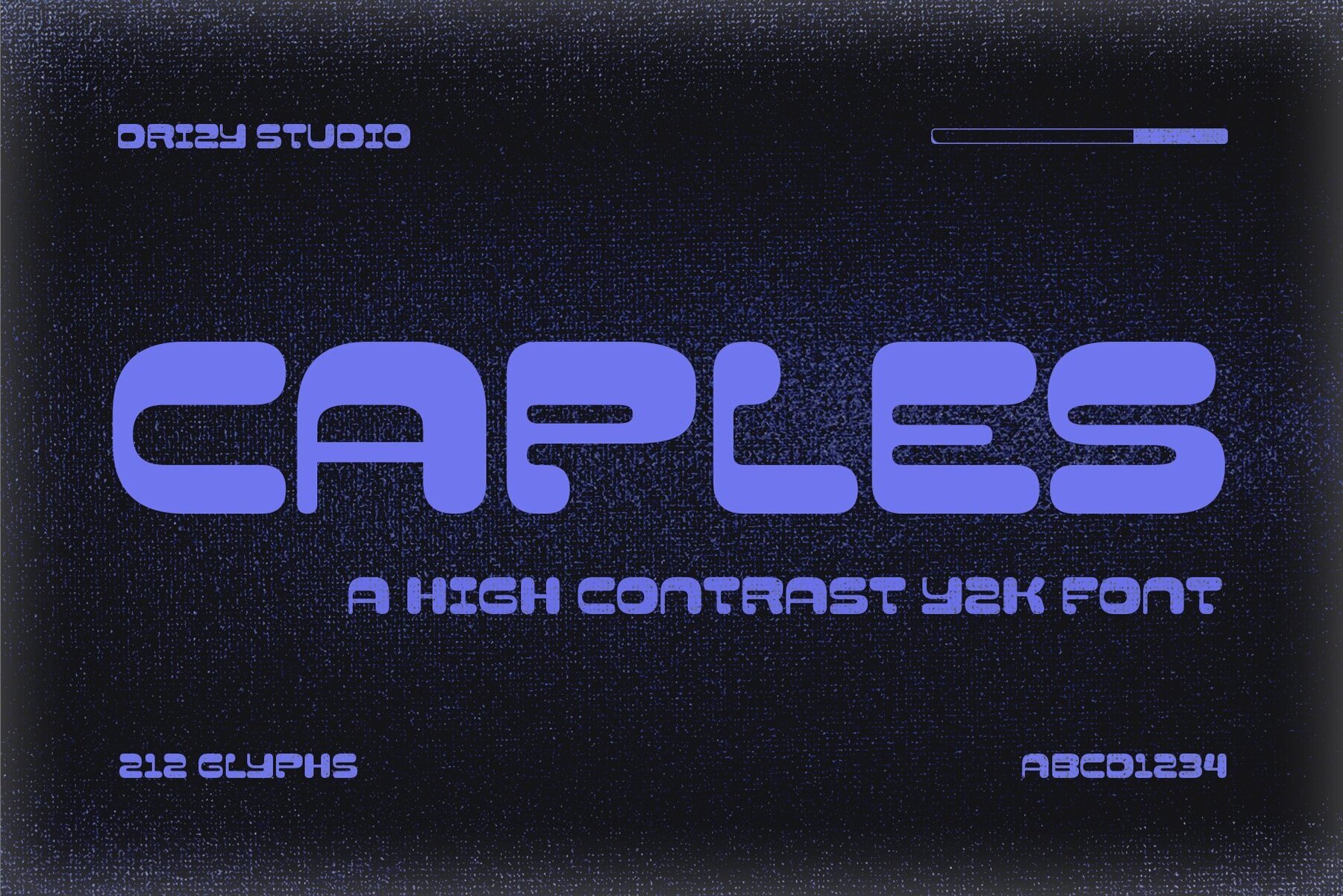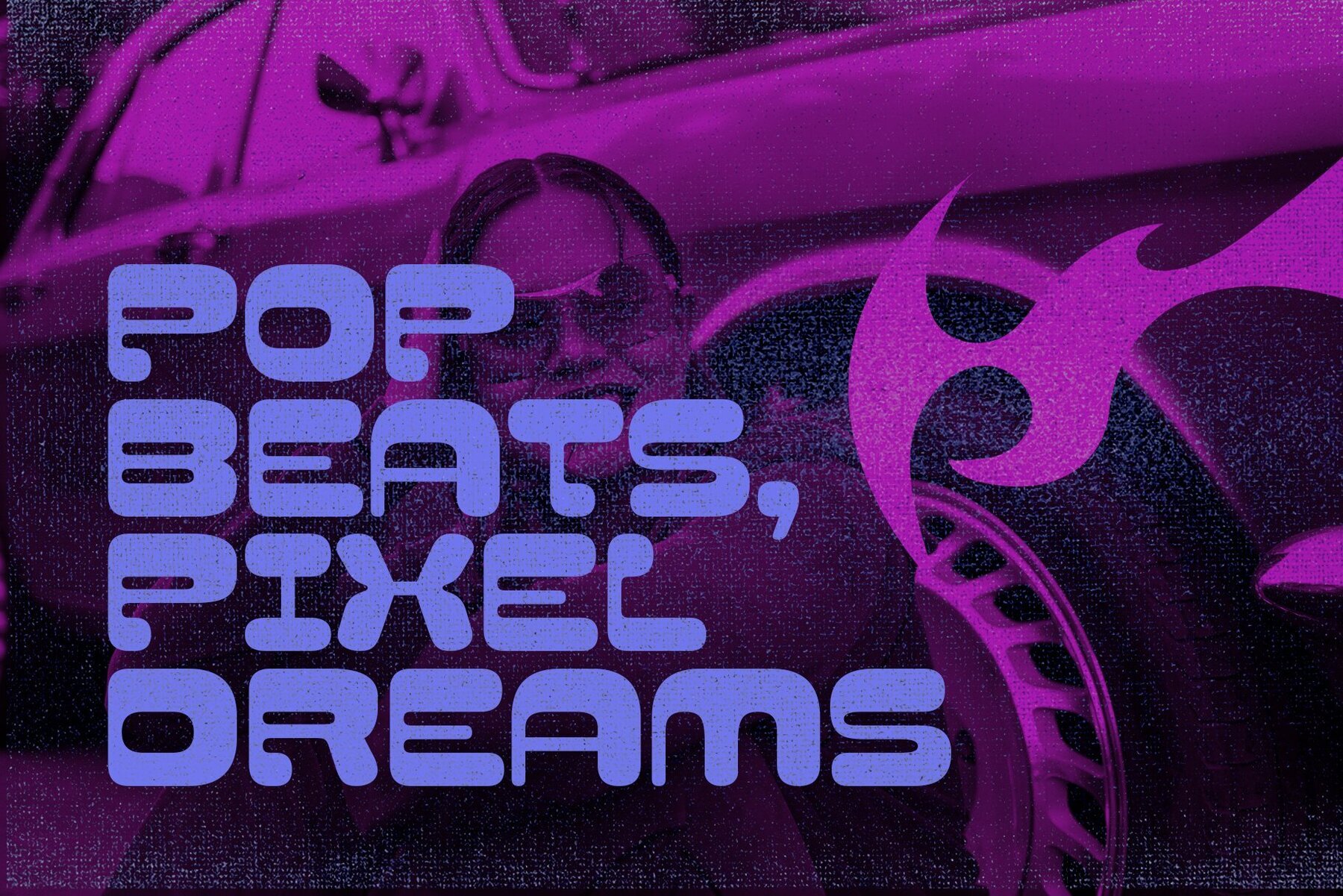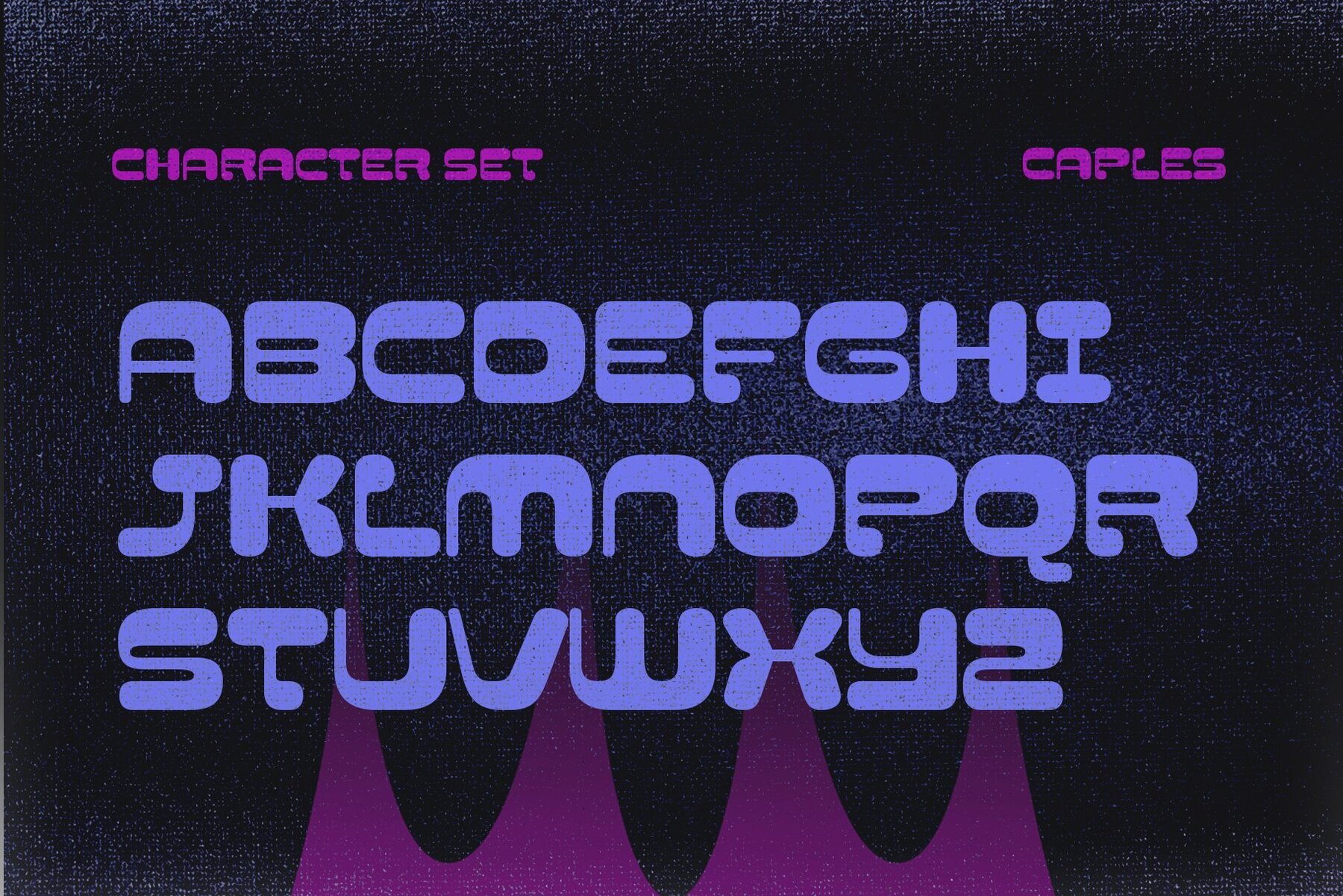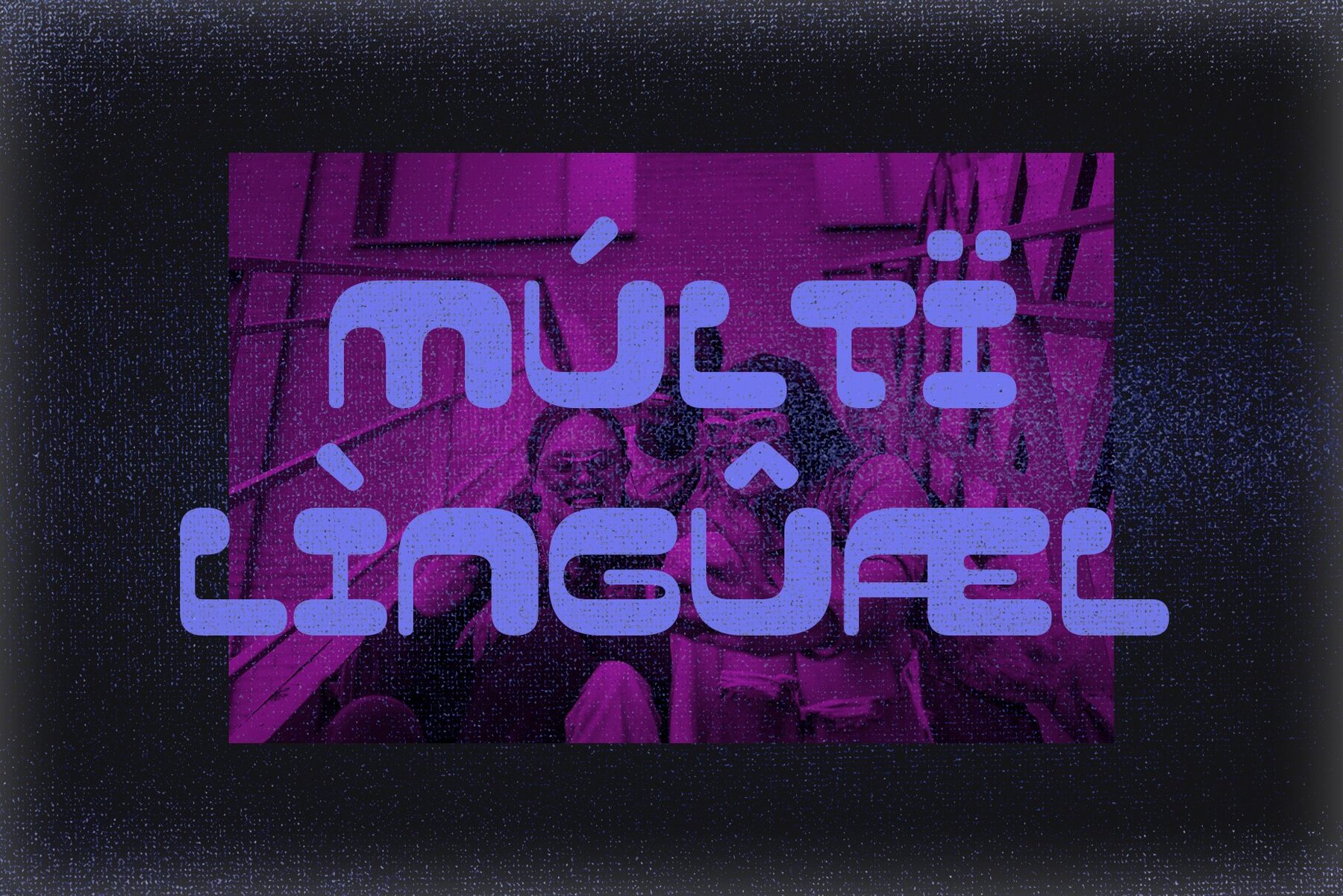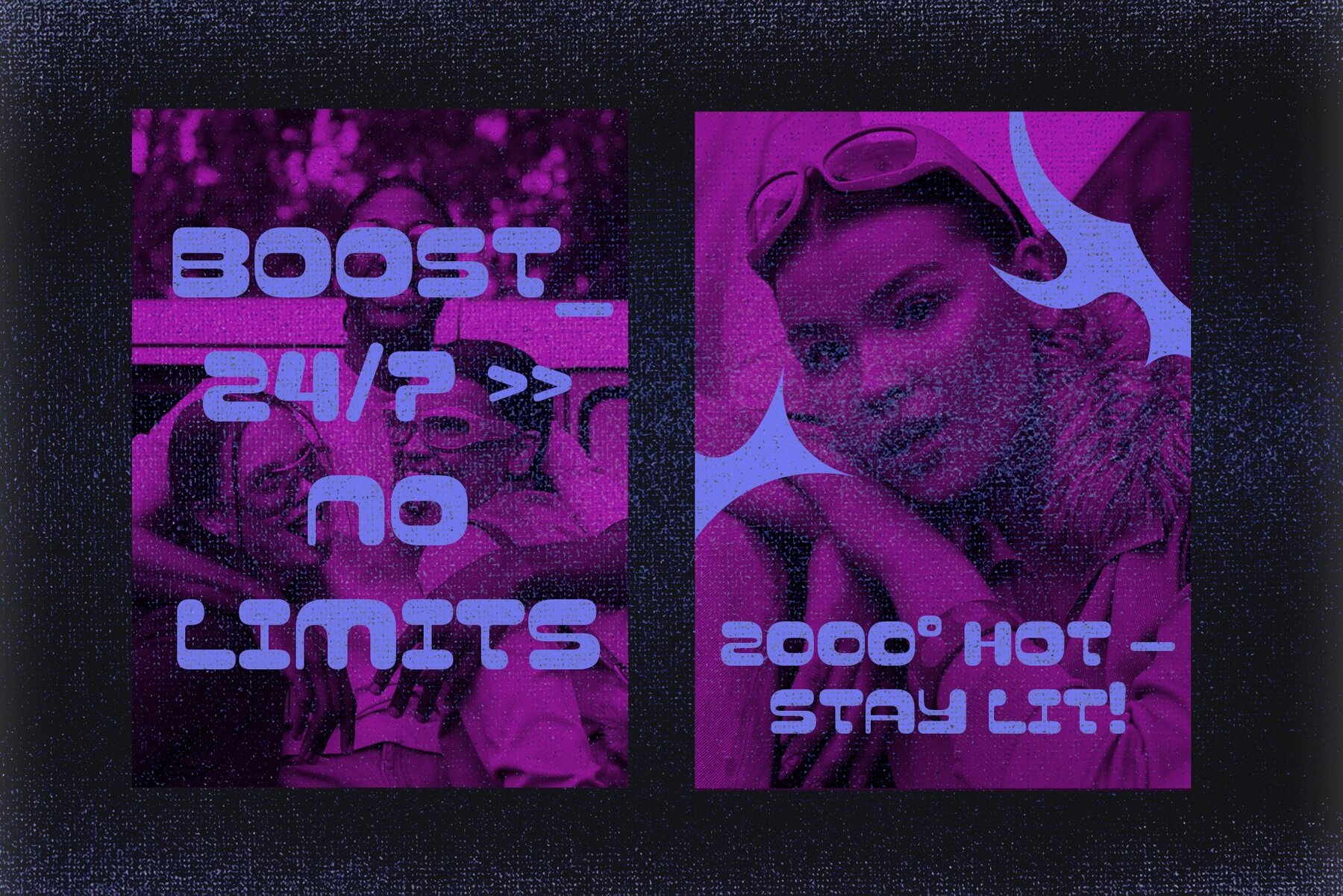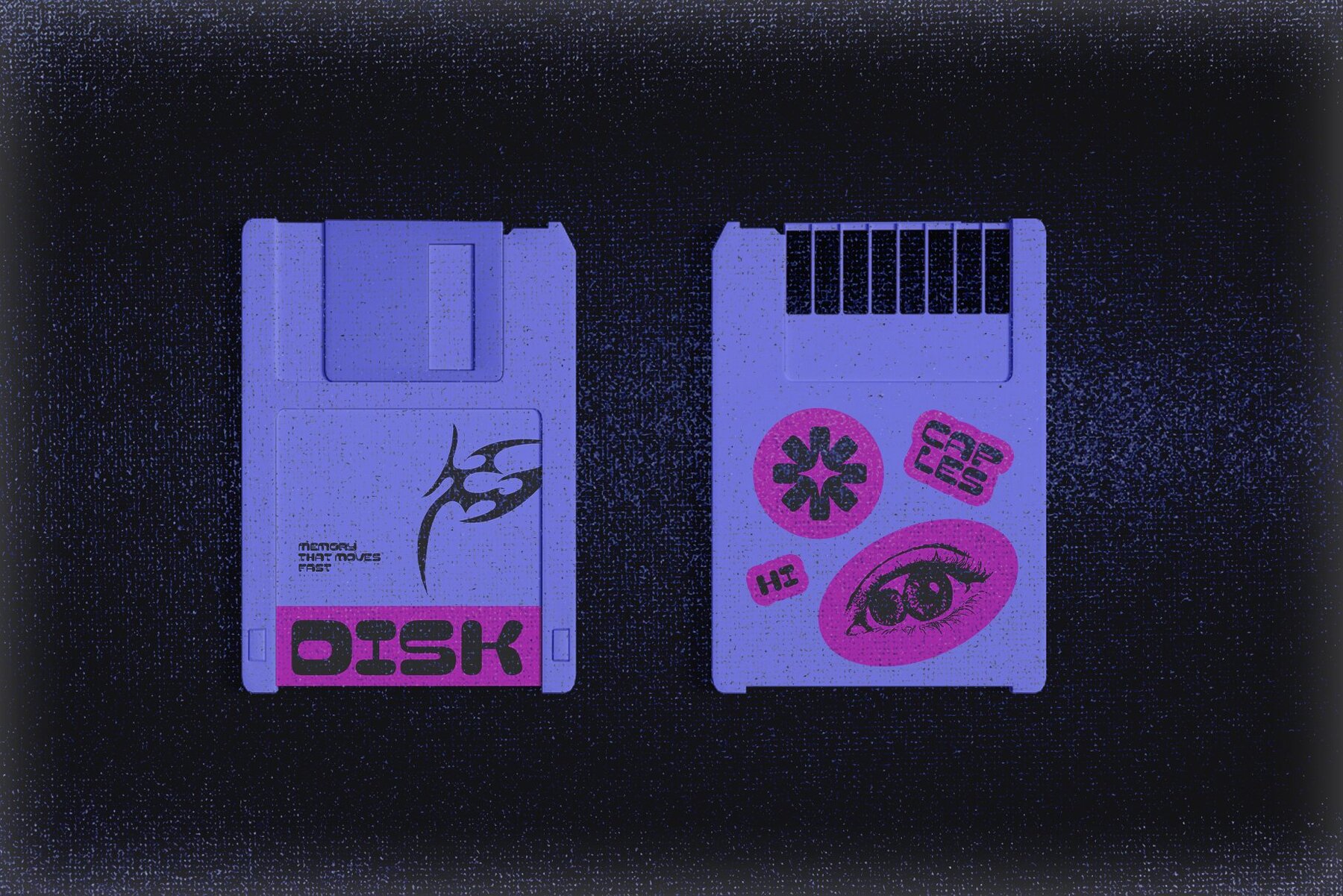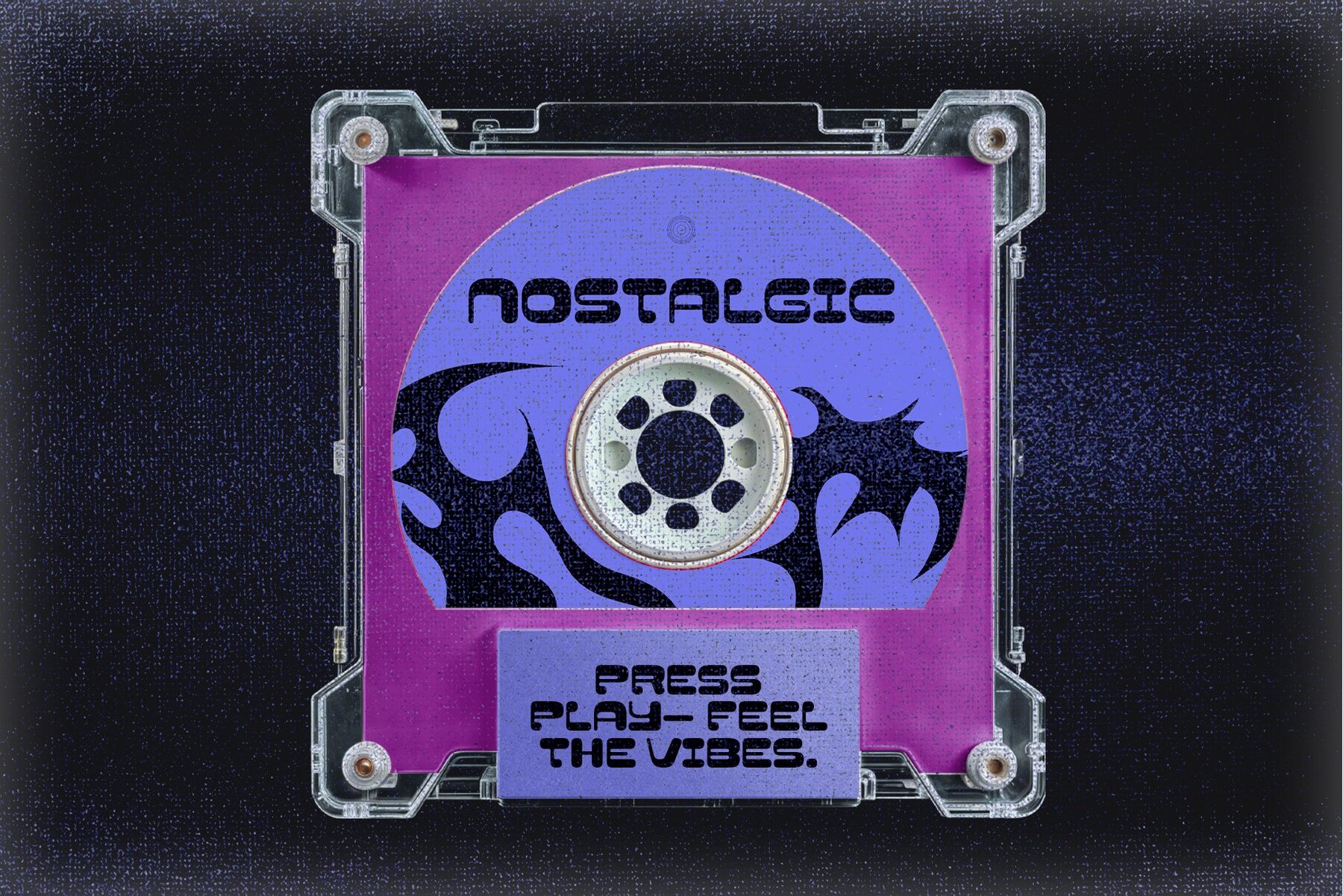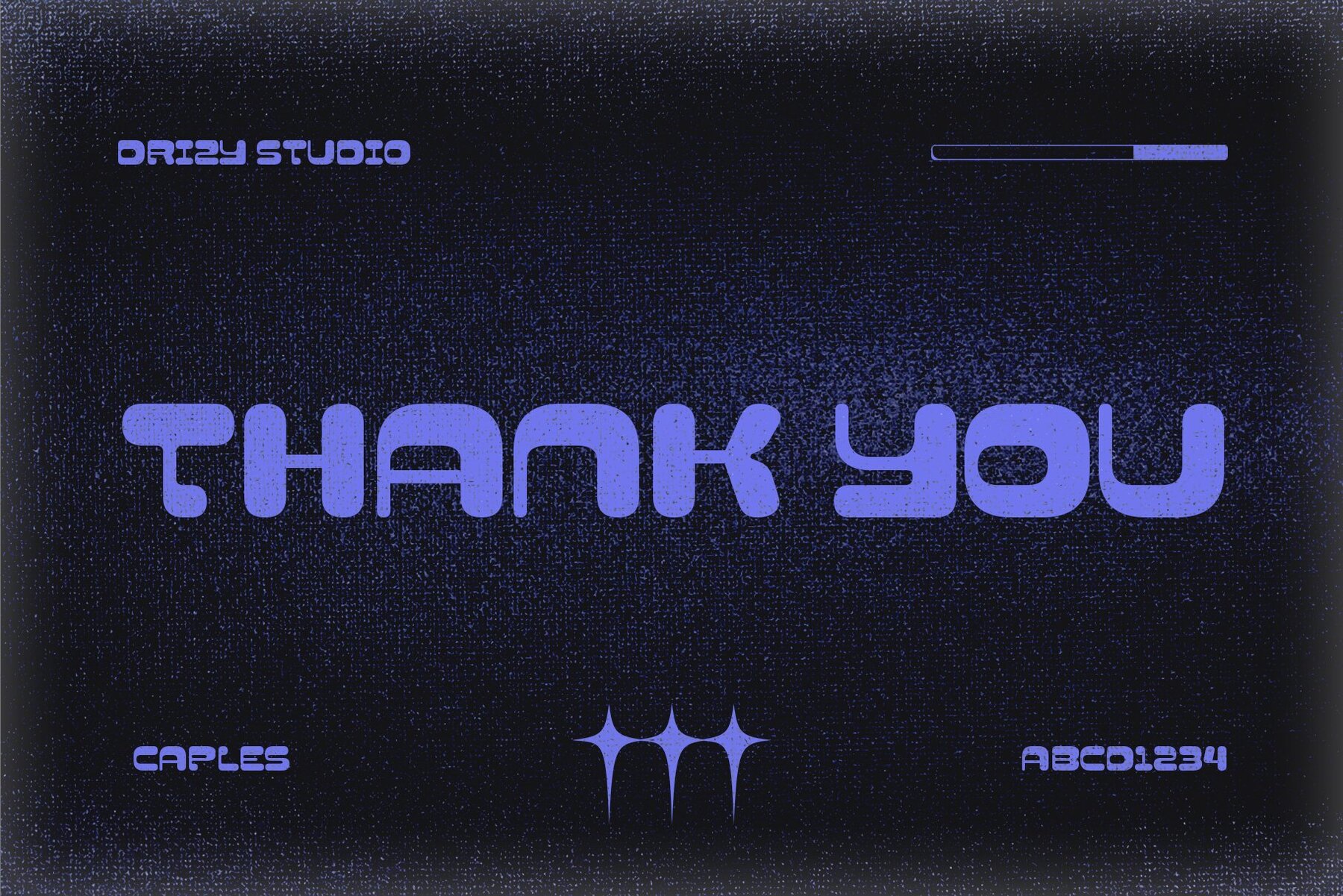
Caples Font
Caples Regular
Step into the futuristic drama of the early 2000s with Caples, a Y2K high-contrast display font that encapsulates the glossy and bold aesthetic of the era. Featuring dramatic curves and sharp edges, Caples is perfect for adding a nostalgic tech-girly vibe to posters, branding, and more. Features:Caples: Y2K High-Contrast Display Font